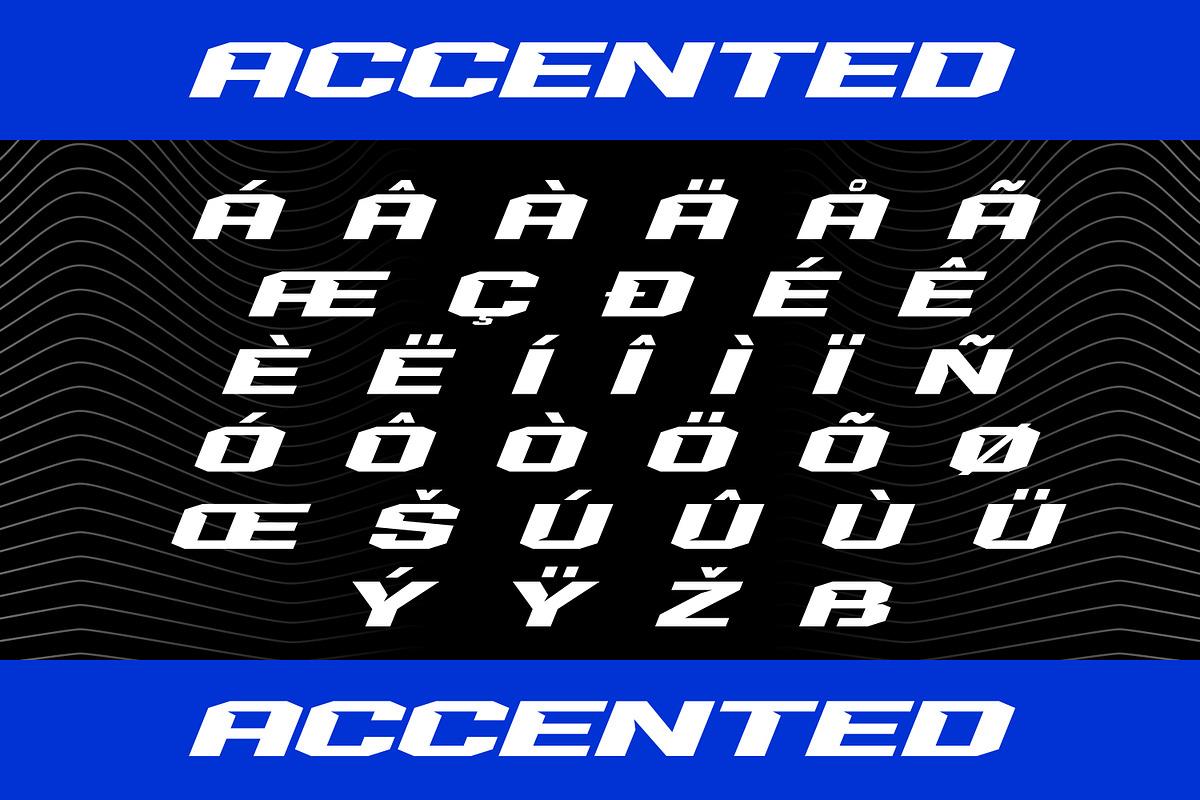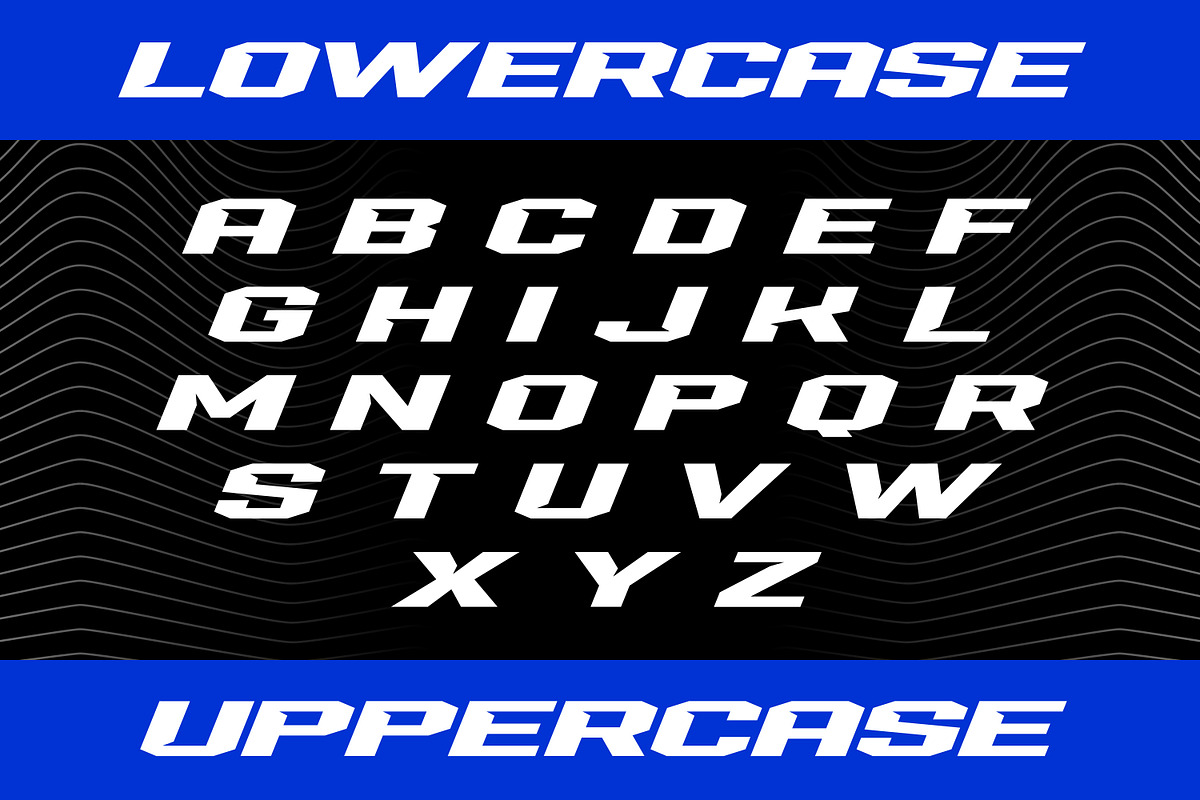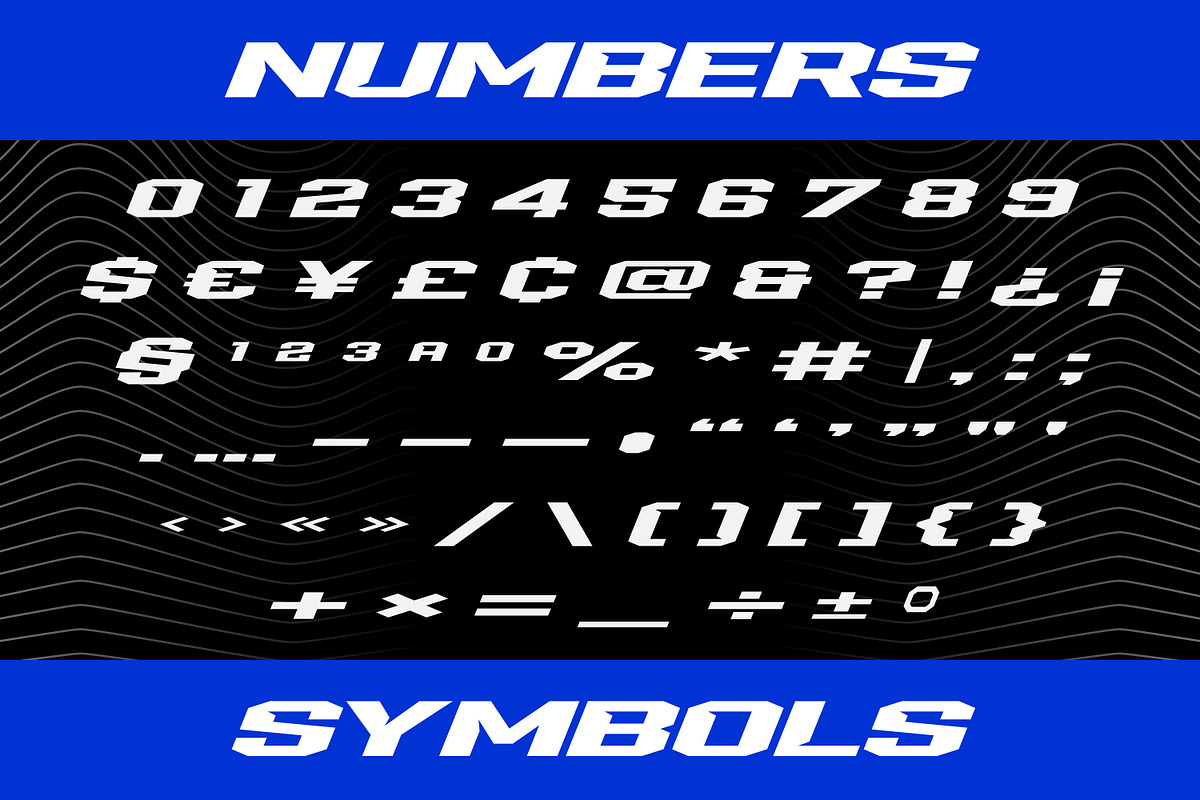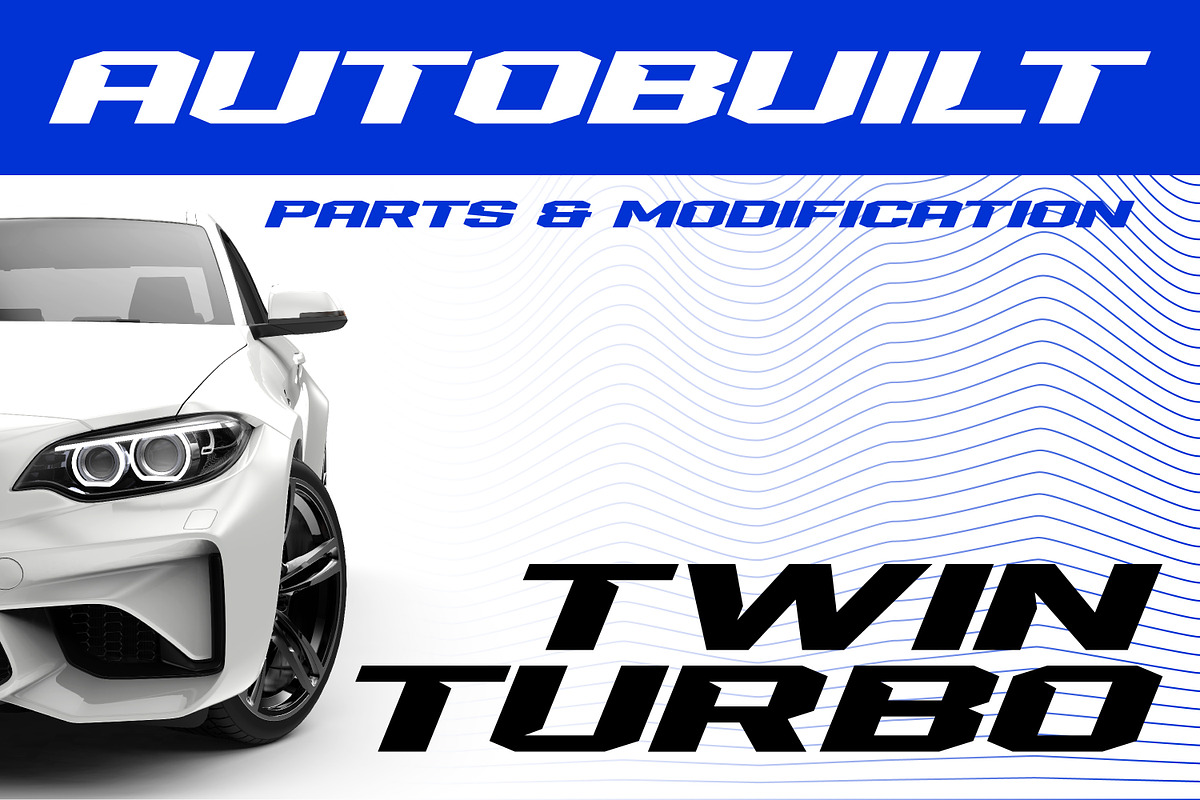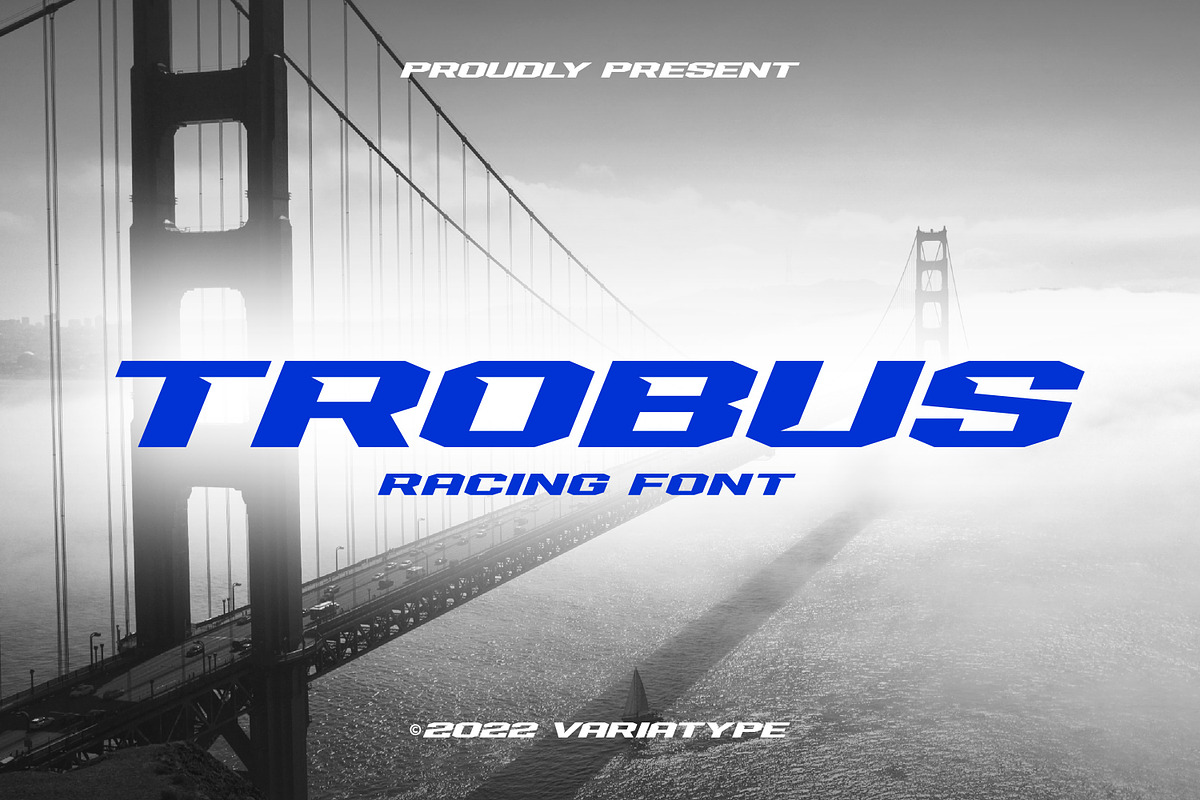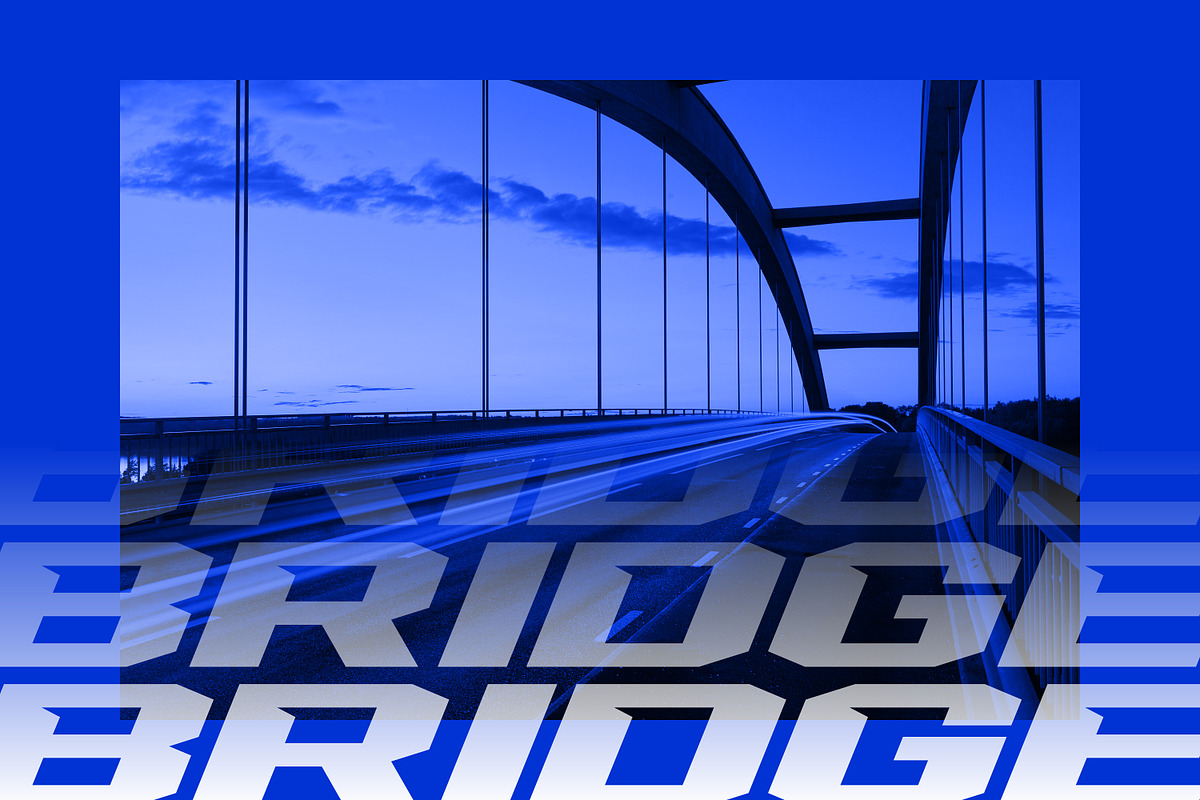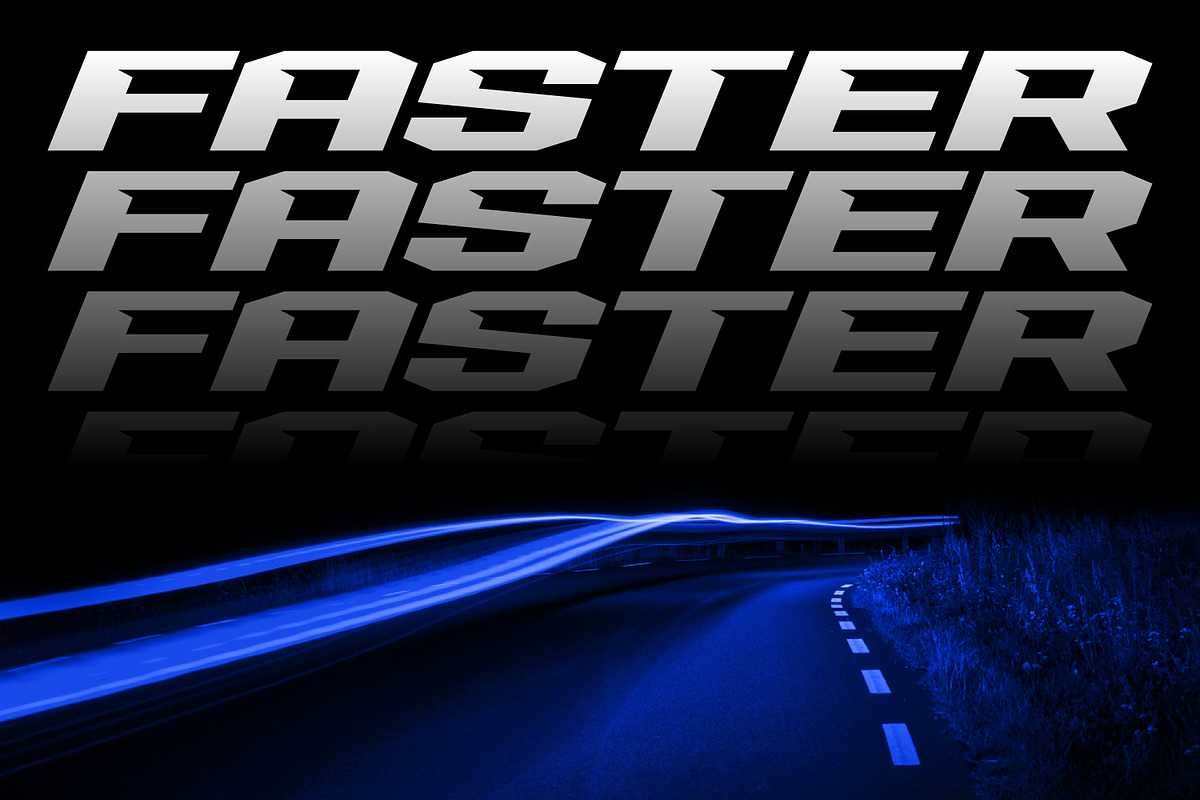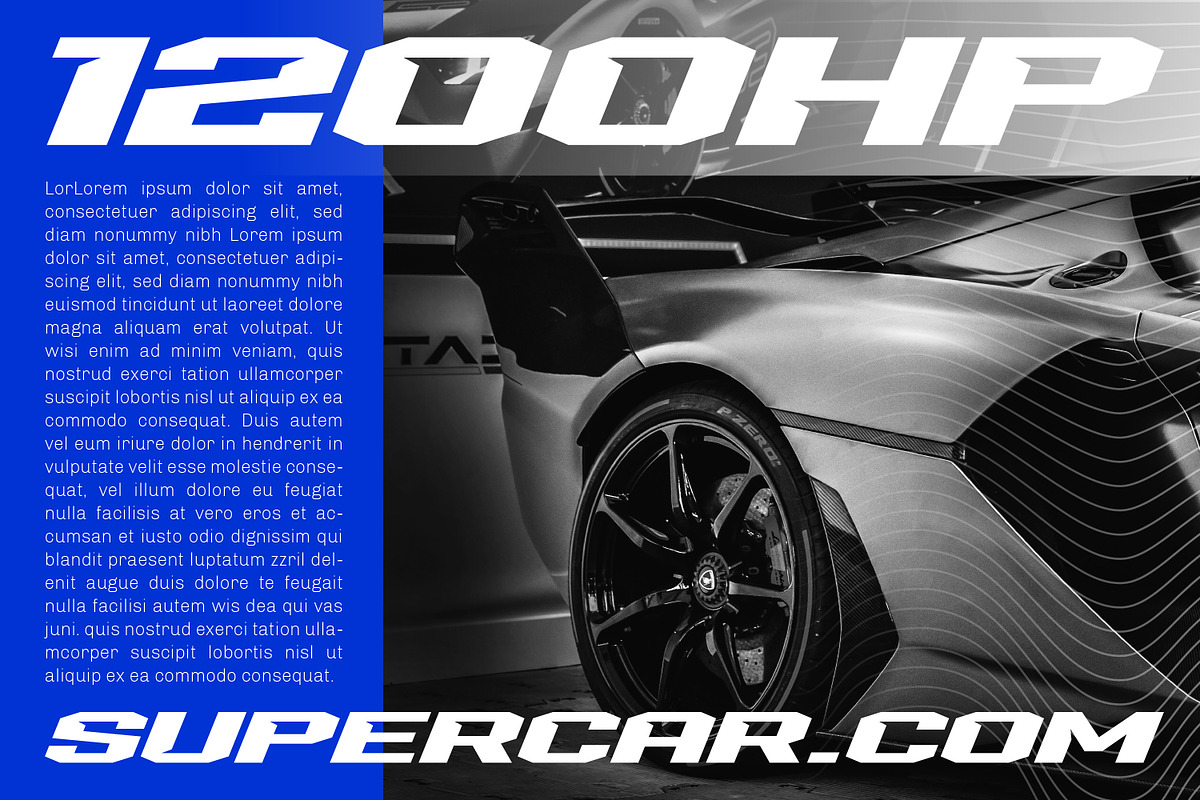
Trobus - Racing Font
Trobus is inspired by automotive and speed, it's really suited to your branding or logotype and more design project, it's flexible to any brand name.
FONT FEATURES
Additional Accents
66 Languages
Kerning
All Caps